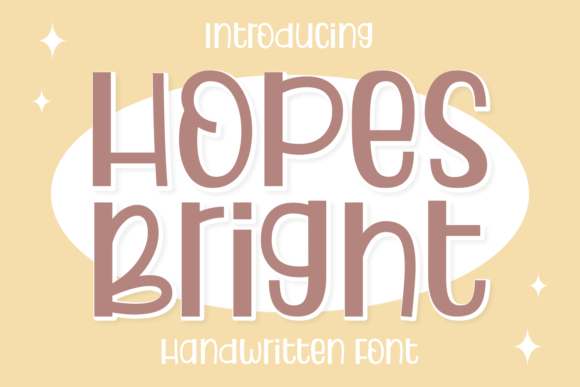
\nLooking for the perfect script font for your next project? Look no further than Hopes Bright Font, the best font for simple logos! Created by Jasm of 7NTypes, this original and exquisite handwritten font embodies joyfulness and is designed to bring cheer to any project it graces.\n\nHopes Bright Font is more than just a font – it's an experience. Its playful curves and graceful strokes create a sense of whimsy and lightheartedness that is sure to delight and captivate your audience. Whether you're designing a new logo, creating marketing materials, or simply looking to add a touch of personality to your next project, Hopes Bright Font is the perfect choice.\n\nBut don't just take our word for it – try it out for yourself! With its easy-to-read lettering and versatile style, Hopes Bright Font is the perfect addition to any font library. It pairs beautifully with a variety of other fonts and can be used for anything from social media graphics to wedding invitations.\n\nSo why wait? Download Hopes Bright Font today and elevate your designs to the next level. Whether you're a professional designer or just getting started, this font is sure to make a lasting impression. Give your projects the unique touch they deserve and add Hopes Bright Font to your collection today!